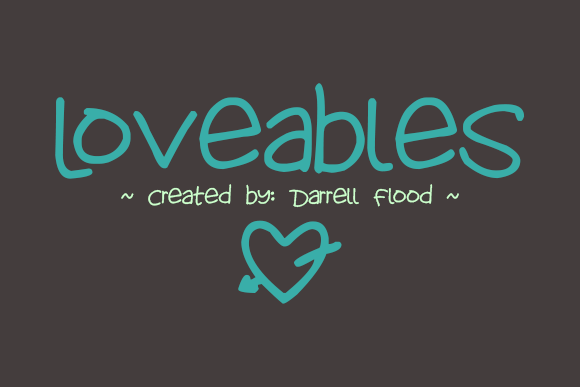
HomeScript FontsLoveables Font Script Fonts Loveables Font FacebookXPinterestWhatsApp About Loveables Font A fun, hand drawn font with lots of character. Font created by Darrell Flood. DOWNLOAD ON CREATIVE FABRICAThis font is sold and delivered by Creative Fabrica. Font Canyon may earn a commission if you buy through this link. People also explored Shark Font Jonhson Black Script Smile Water Font A Very Cartoon Christmas Font Pricedown Kiranty Font Lariatta Font Deplants Font Warm Font 278 0 TagsLoveables Font Previous articleHijrnotes FontNext articleBraiden Font LEAVE A REPLY Cancel reply Comment: Please enter your comment! Name:* Please enter your name here Email:* You have entered an incorrect email address! Please enter your email address here Website: Save my name, email, and website in this browser for the next time I comment. Personal Use Free BD Beans Personal Use Free Read more about this font Avagan Personal Use Free Read more about this font Anti Personal Use Free Read more about this font Namskow Personal Use Free Read more about this font BLOG Modern Sans-Serif Fonts That Brands Love in 2025 In 2025, modern sans-serif fonts remain a top choice for brands looking to project clarity, professionalism, and... How to Cut Any Font on Cricut: Convert a Font to SVG (Free) Transform Your Website: Elevate Your Typography with 7 Best Web Font Generators 5 Fonts That Will Dominate Design Trends in 2026